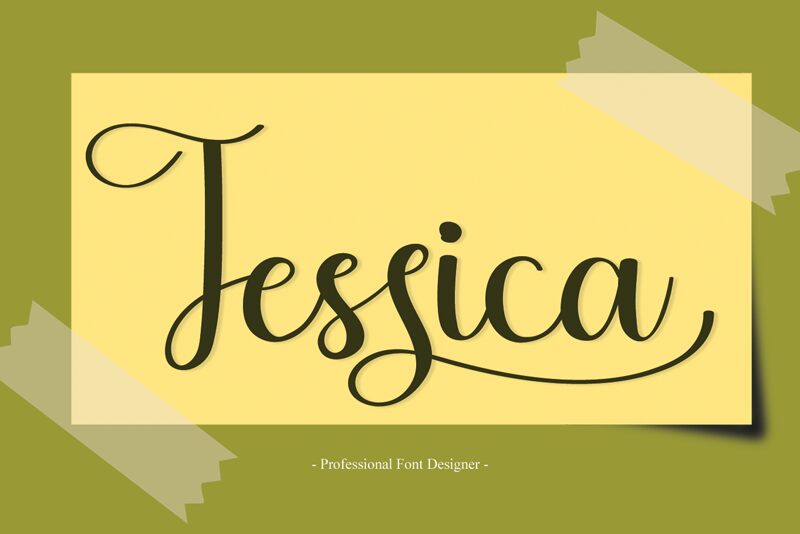
Jessica
Jessica by Erik Studio is a charming and playful semi-light calligraphy font that adds a touch of warmth to any project, from wedding invitations to branding designs. Its delicate strokes and elegant flourishes create a feminine and friendly aesthetic that is perfect for greeting cards, social media graphics or any other project that requires an inviting and approachable vibe. With its wide range of uses, Jessica is a versatile font suitable for any creative endeavor that demands a cute and whimsical style. Add some personality to your next project with the lovable charm of Jessica.